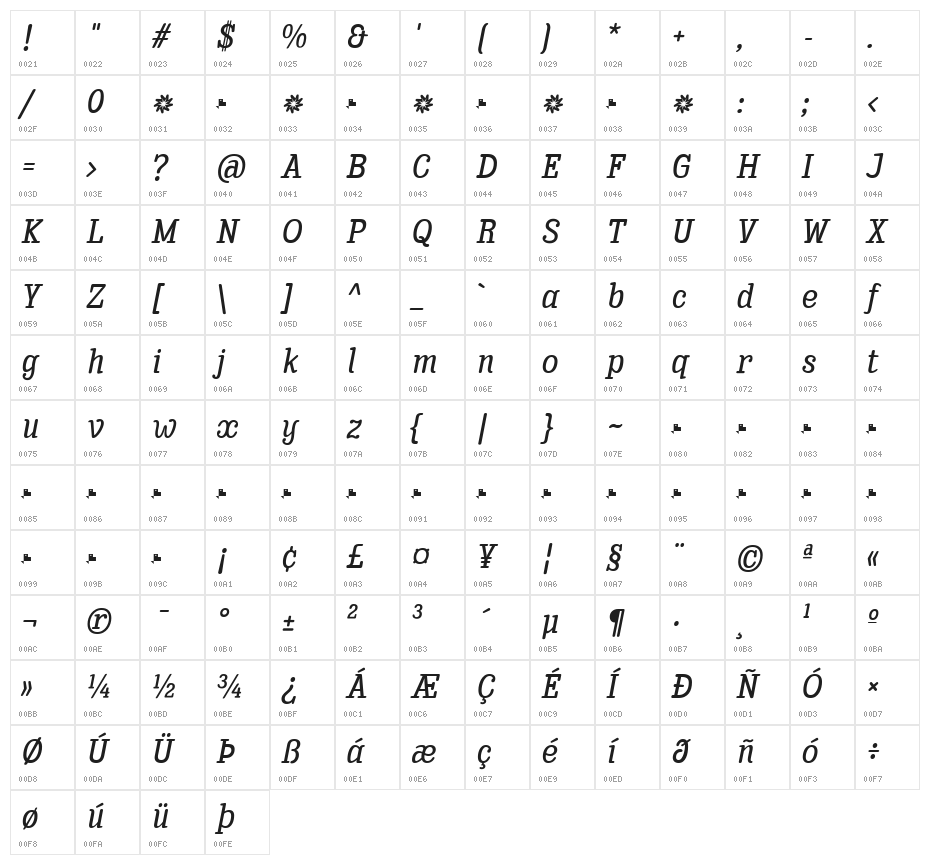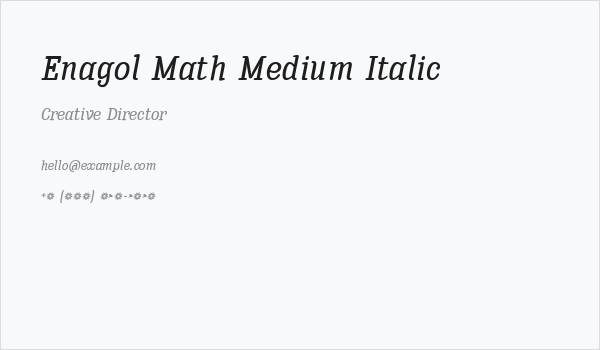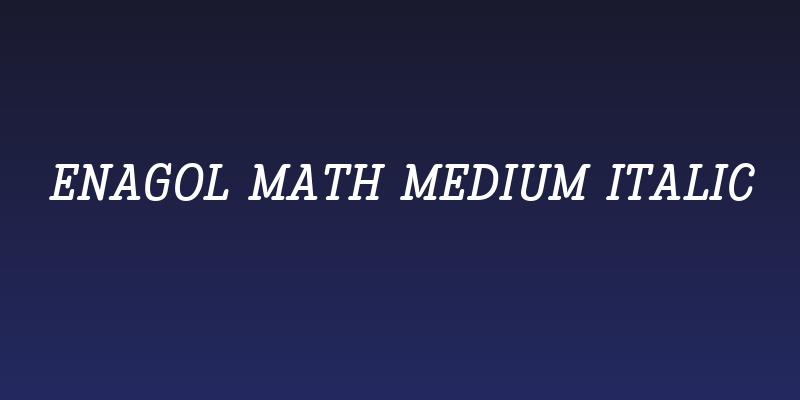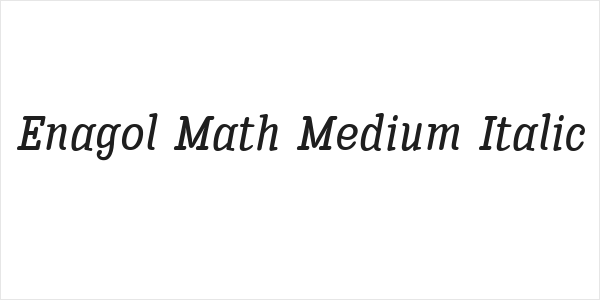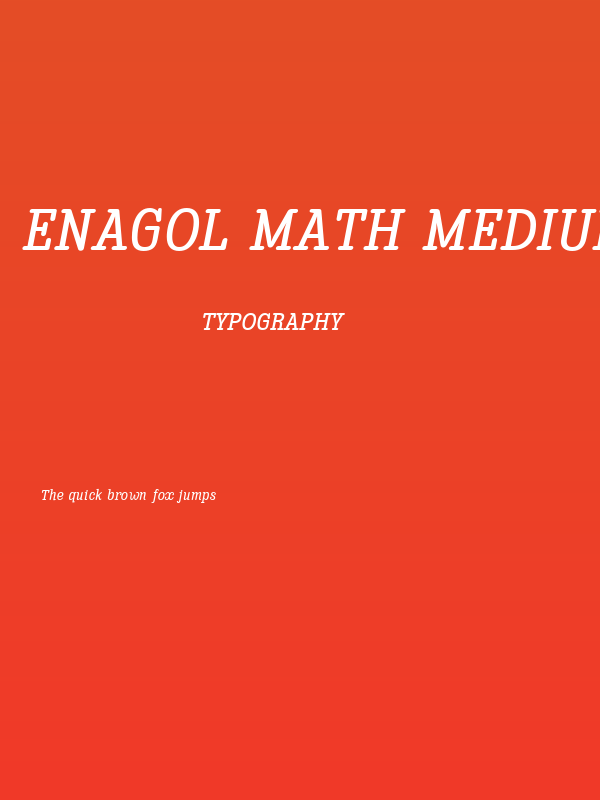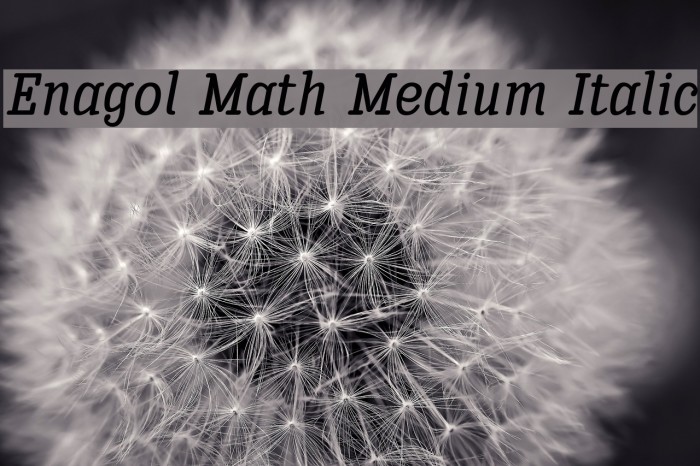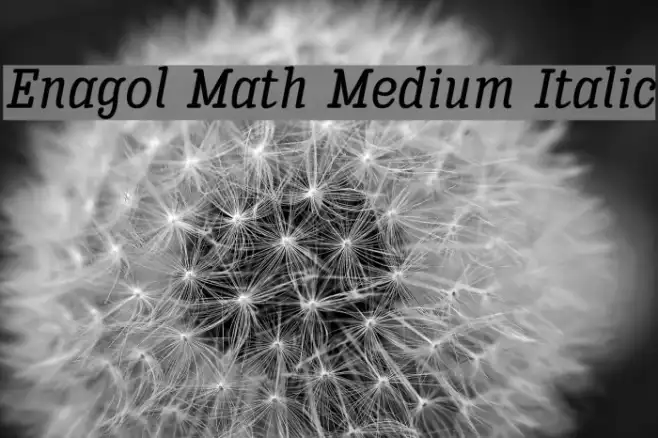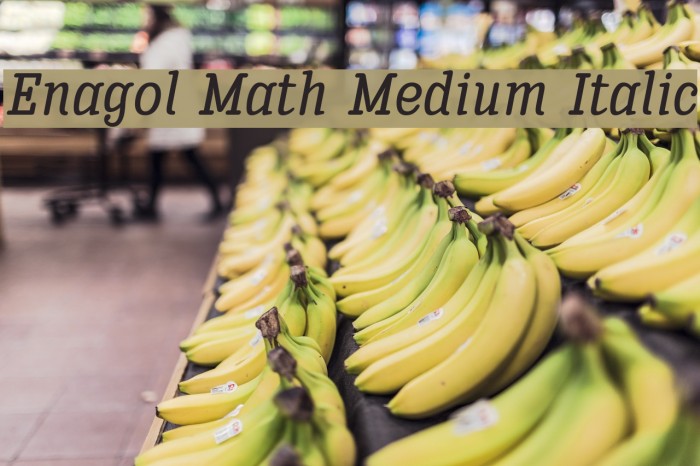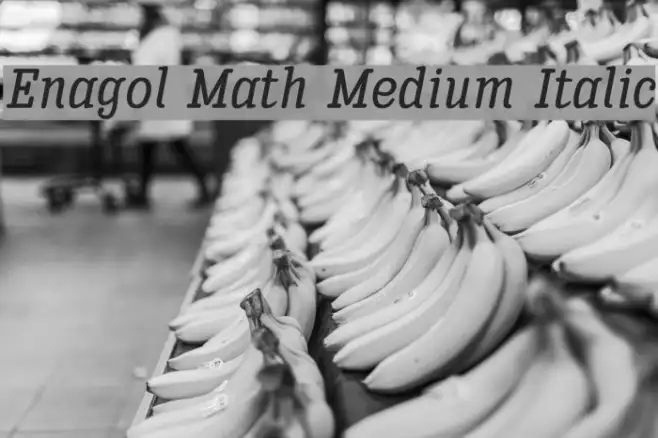
Enagol Math Medium Italic Font
Enagol Math Medium Italic Description
This font exhibits a classic serif style with a medium weight and italic slant, giving it an elegant and sophisticated appearance. The characters have a moderate contrast in stroke thickness, which enhances readability while maintaining a stylish look. The serifs are pronounced yet refined, adding a touch of tradition to the overall design. The character spacing is normal, ensuring a balanced and harmonious text flow. This font is versatile, suitable for both digital and print media, and can be effectively used in various design contexts.
| Proposed Projects | Ideal for editorial design, book covers, formal invitations, and branding materials. |